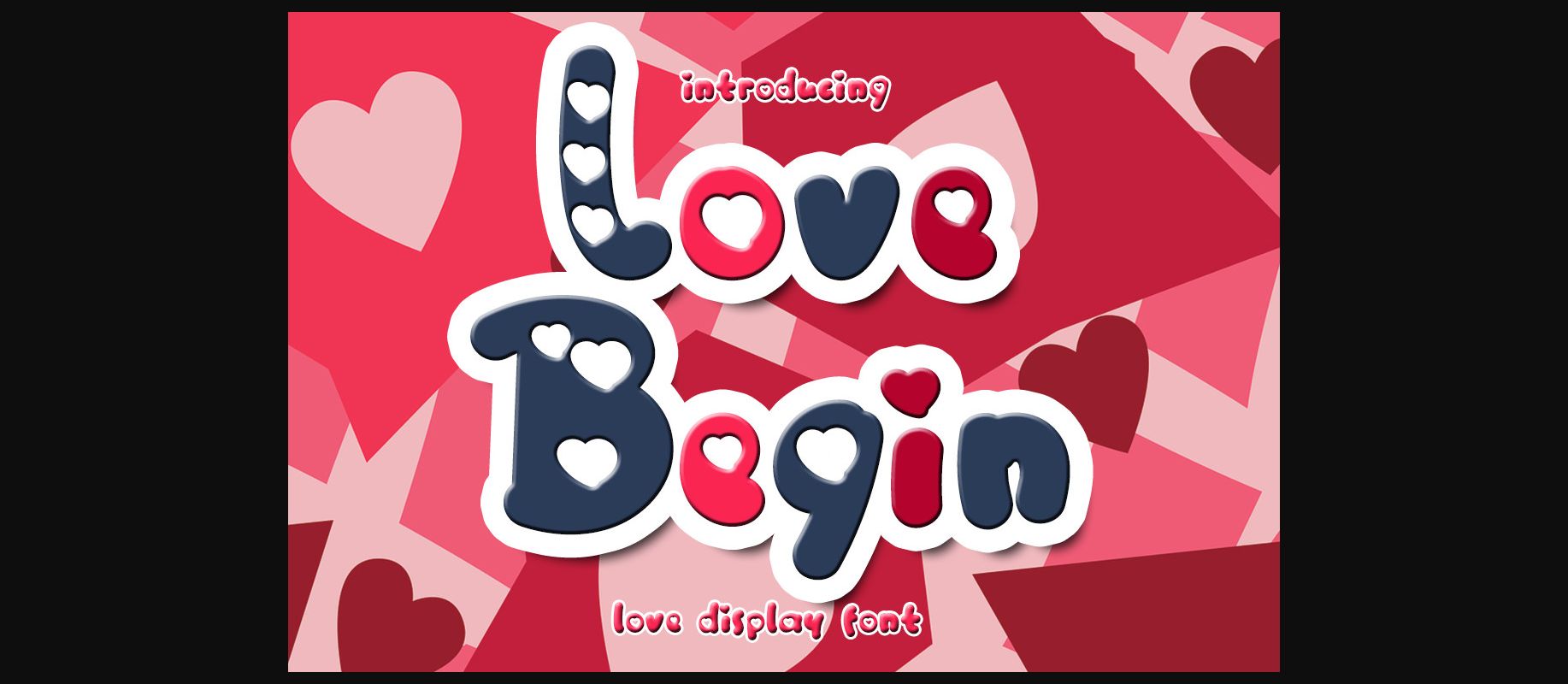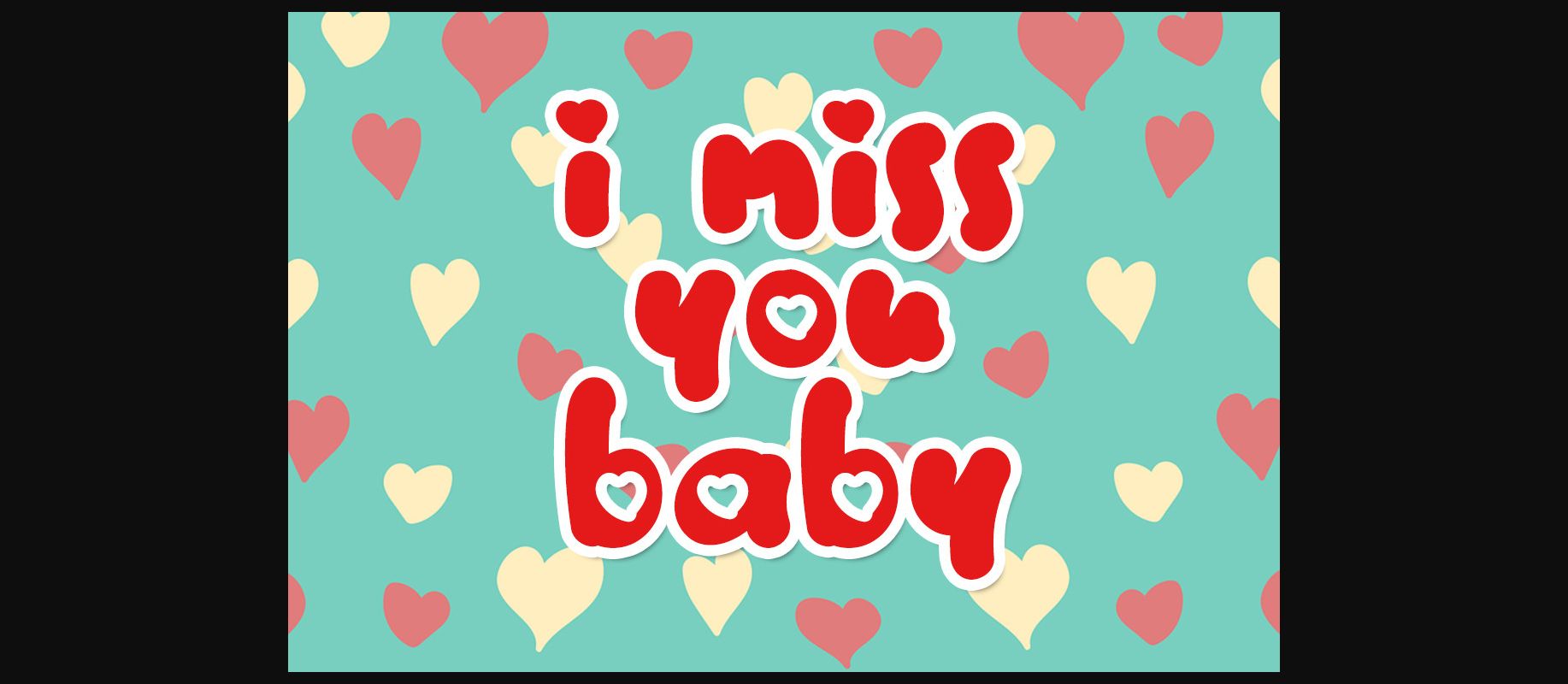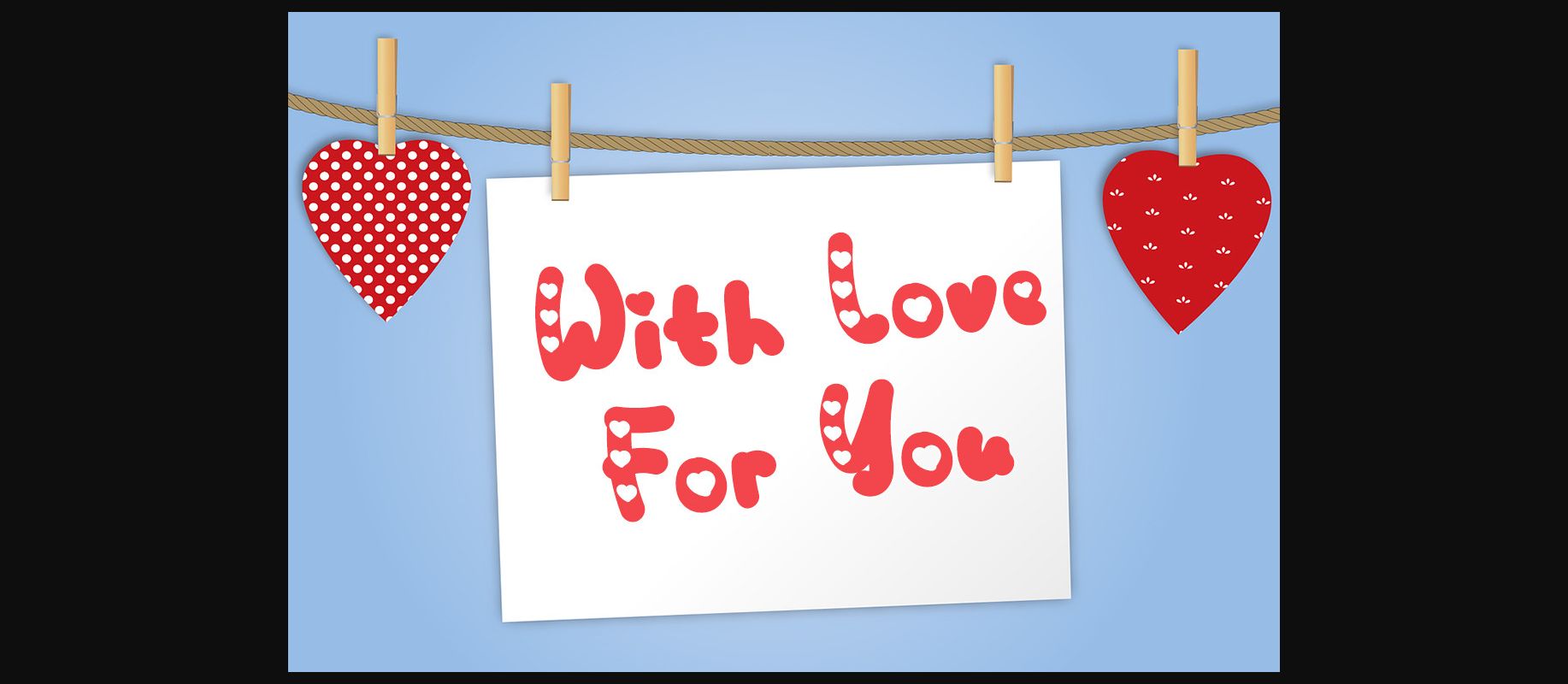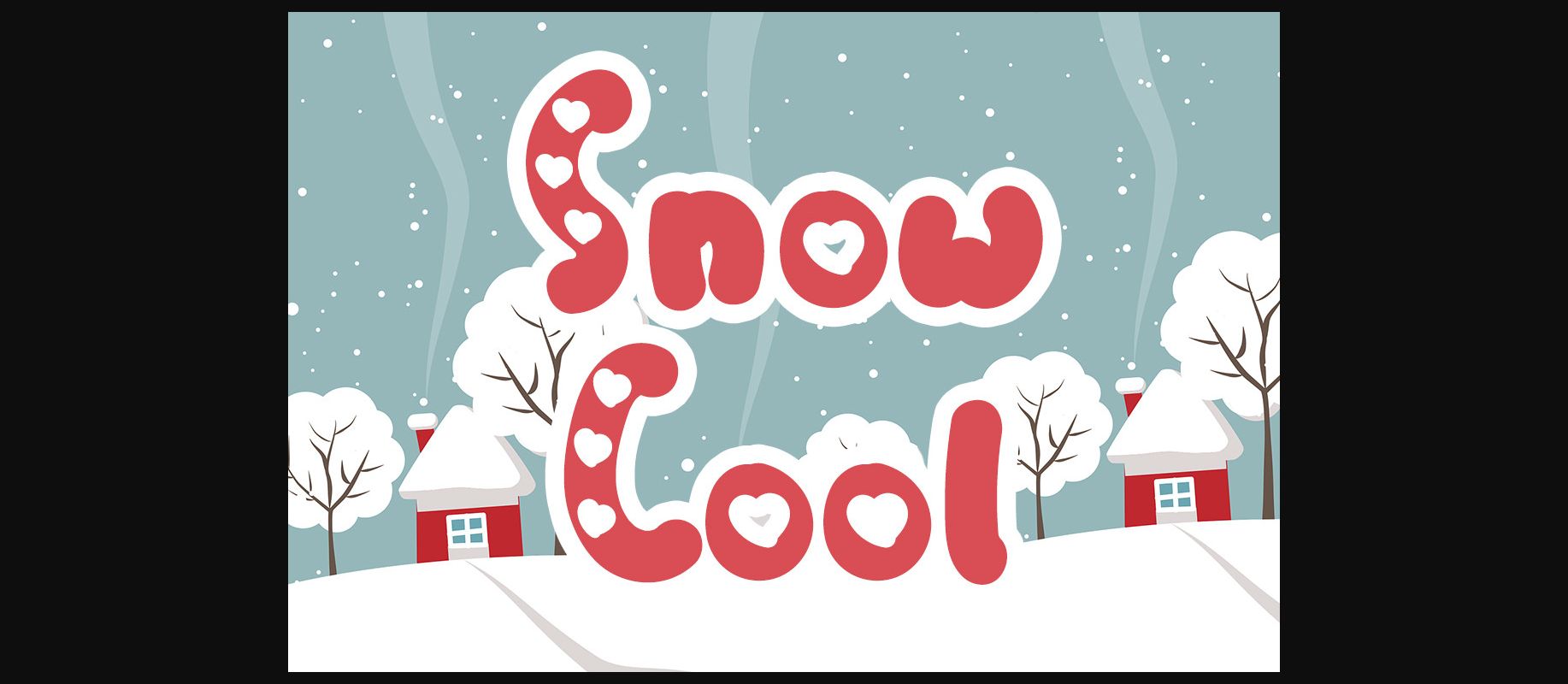
About Love Begin Font
Love Begin is a romantic and chic decorative font. Whether you’re using it for crafts, digital design, presentations, or making greeting cards, this font has the potential to become your favorite go-to font, no matter the occasion!